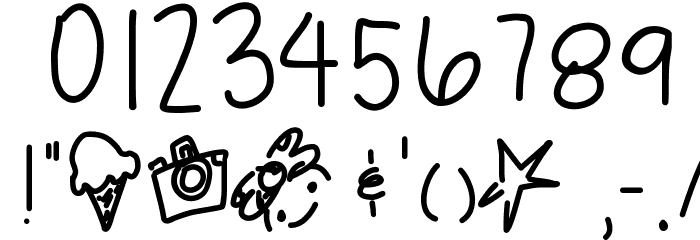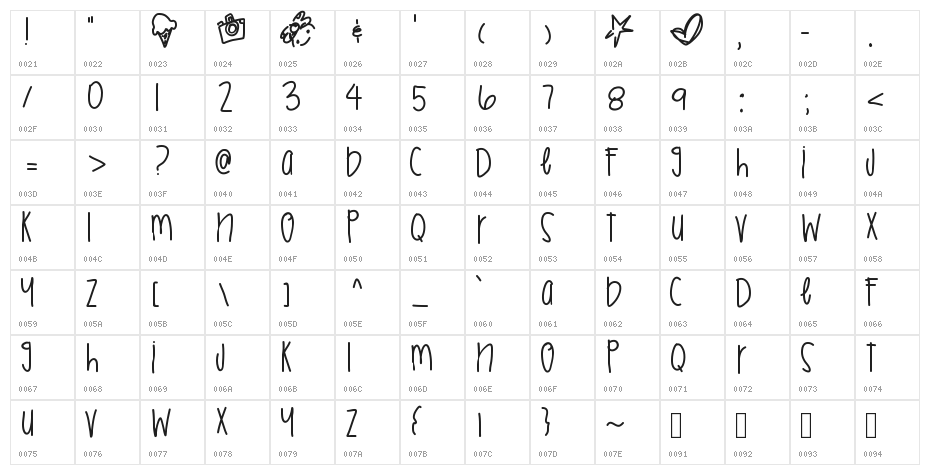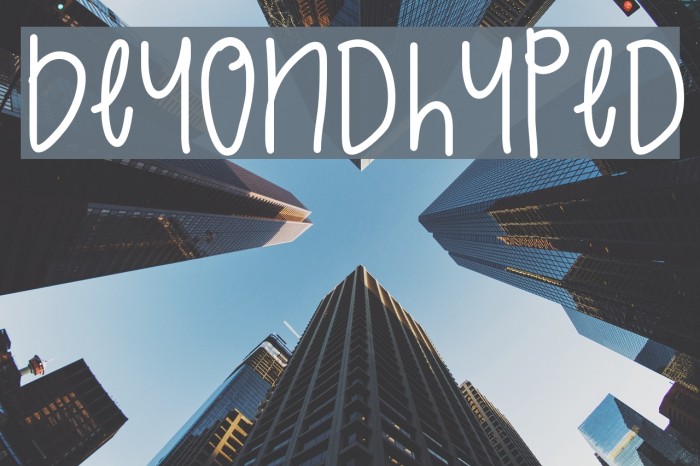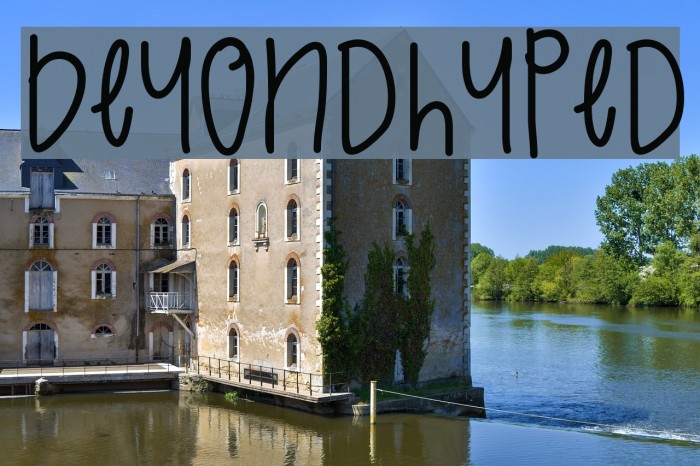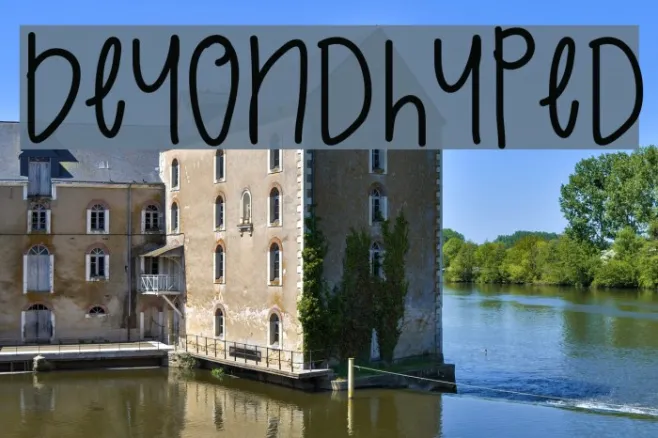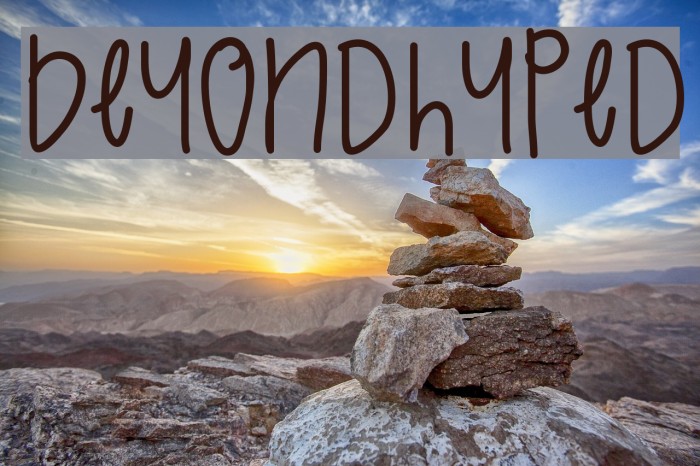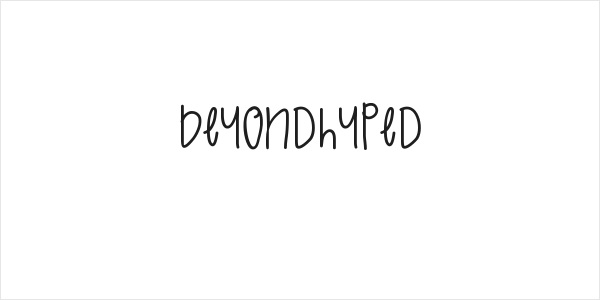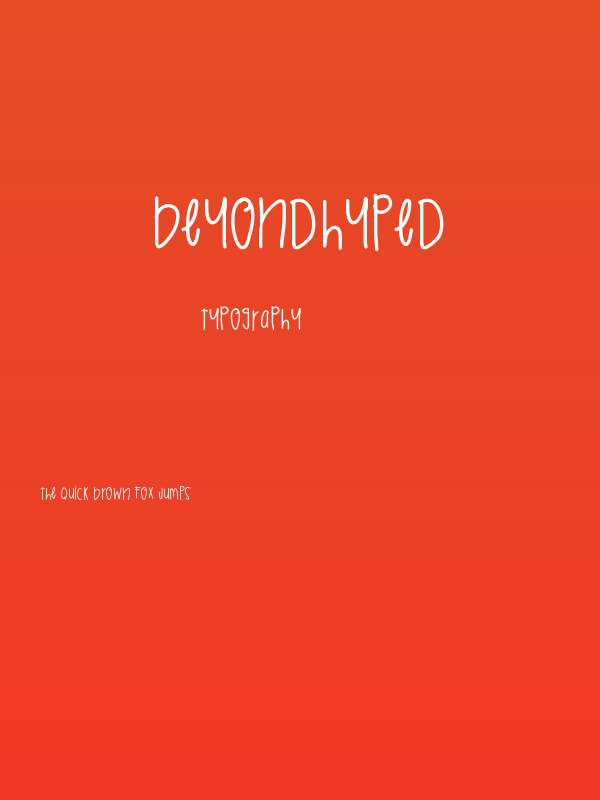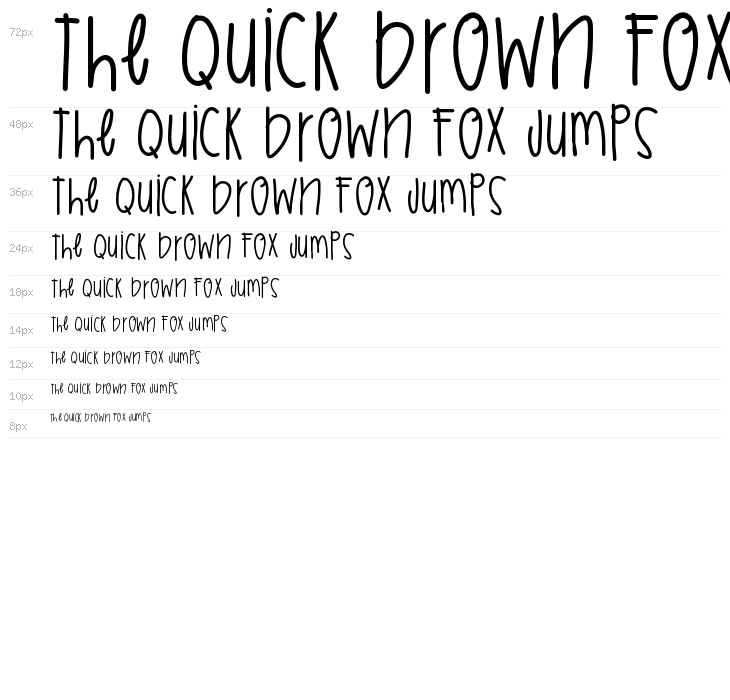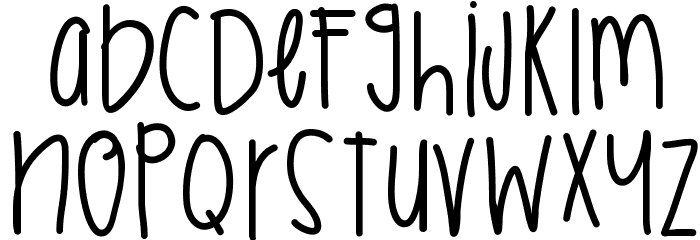
BeyondHyped Font
BeyondHyped Description
This playful and whimsical font features a handwritten style with a casual and friendly appearance. The letters are slightly irregular, adding a sense of charm and personality. The strokes are consistent in width, giving it a uniform look while maintaining a lively feel. The font includes both uppercase and lowercase letters, numbers, and a variety of special characters, making it versatile for different uses. Its informal style is perfect for projects that require a personal touch or a fun, approachable vibe.
| Proposed Projects | Ideal for greeting cards, children's books, playful branding, and social media graphics. |